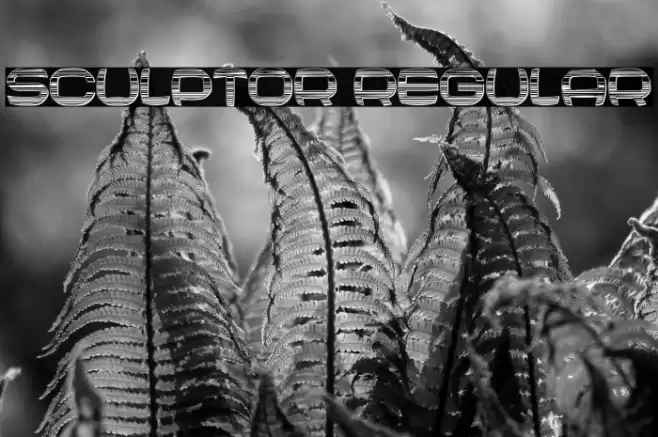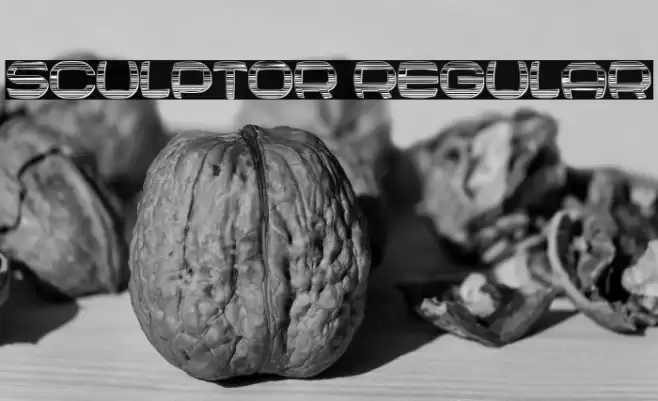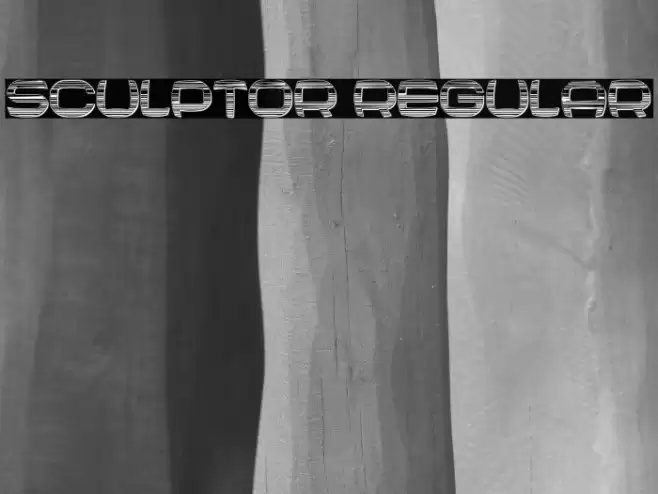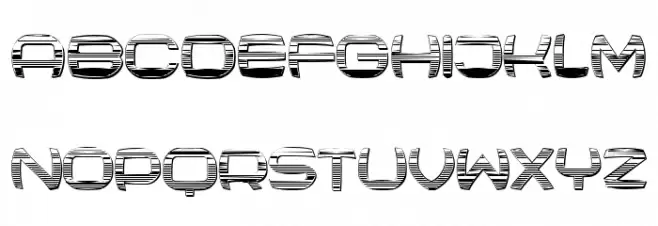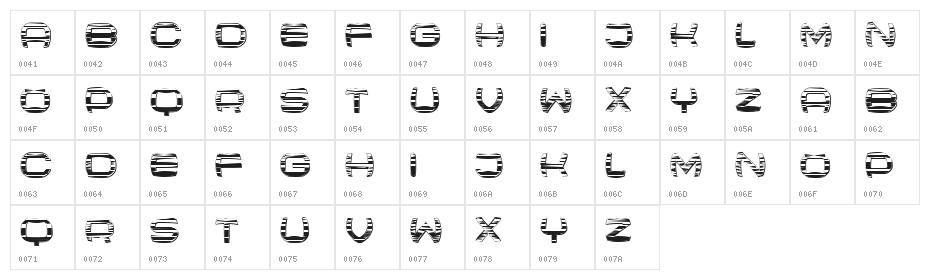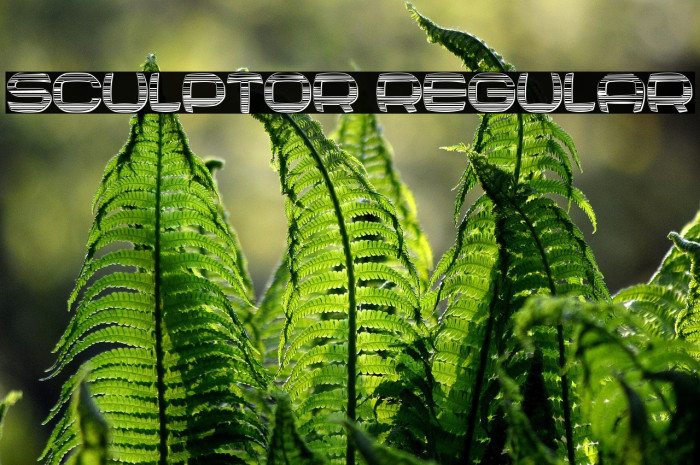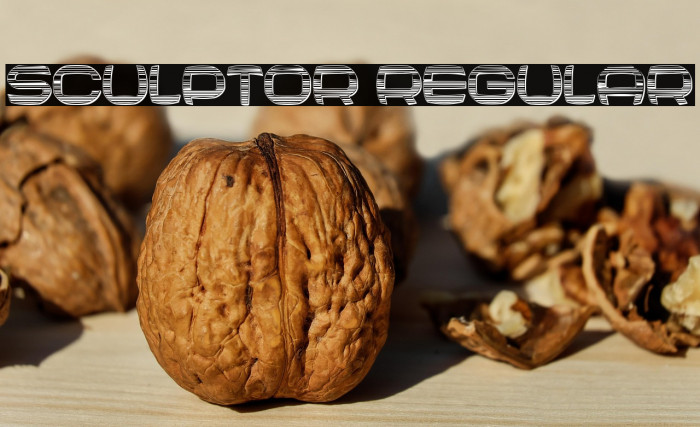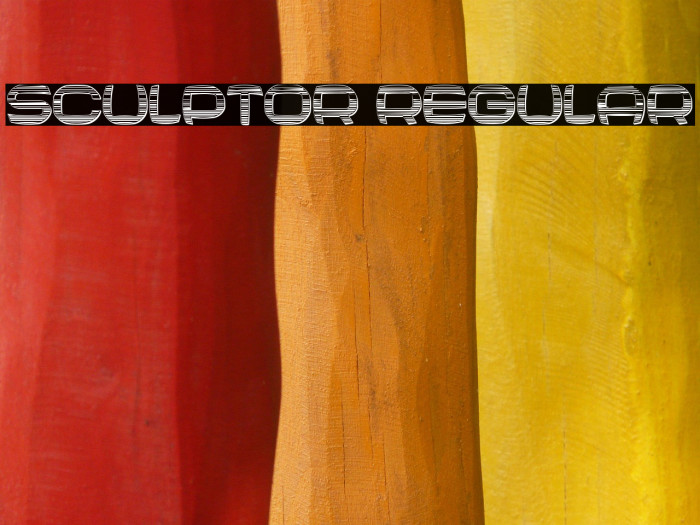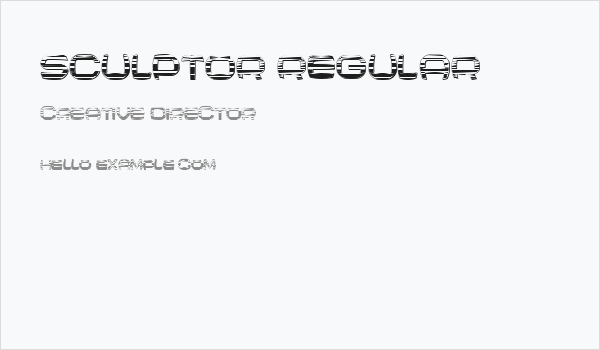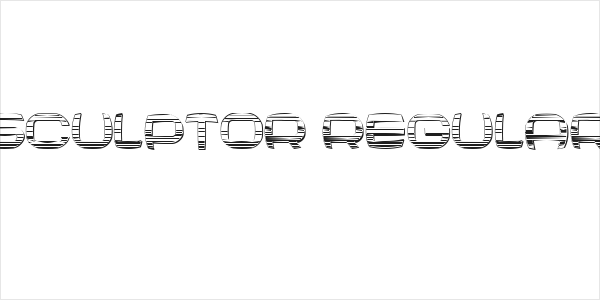
Sculptor Regular Font
Sculptor Regular Description
This font features a bold and futuristic design with a distinct three-dimensional effect. The letters are crafted with a series of parallel lines that create a sense of depth and movement. The uppercase characters are particularly striking, with each letter appearing as if carved from a solid block. The font's unique style is both modern and dynamic, making it ideal for projects that require a strong visual impact. The geometric shapes and clean lines contribute to its contemporary appeal, while the intricate detailing adds a layer of sophistication.
A bold, futuristic font with a three-dimensional effect and geometric design from Uncategorized fonts.
- Proposed Projects: Ideal for branding, posters, album covers, and any project needing a modern, impactful look.